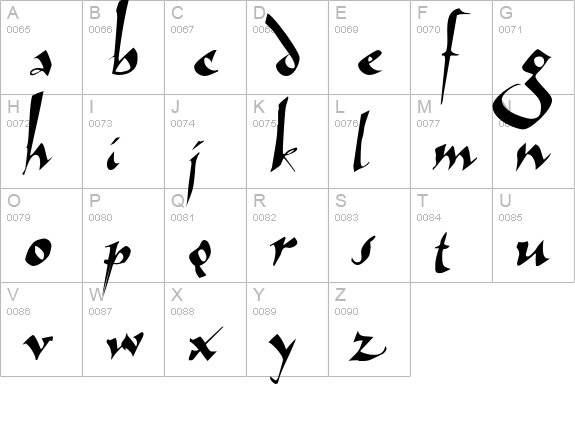
Arthur Font Details
The Arthur font is a versatile and elegant typeface that exudes sophistication and charm. With its classic yet modern design, this font is perfect for a wide range of projects, from branding to editorial design. The Arthur font is available for free download at FontsMarket.com, making it easily accessible to designers and creators looking to add a touch of timeless elegance to their work. Its sleek lines and unique character will make any text stand out and leave a lasting impression on viewers. Add a touch of refinement to your designs with the Arthur font today!